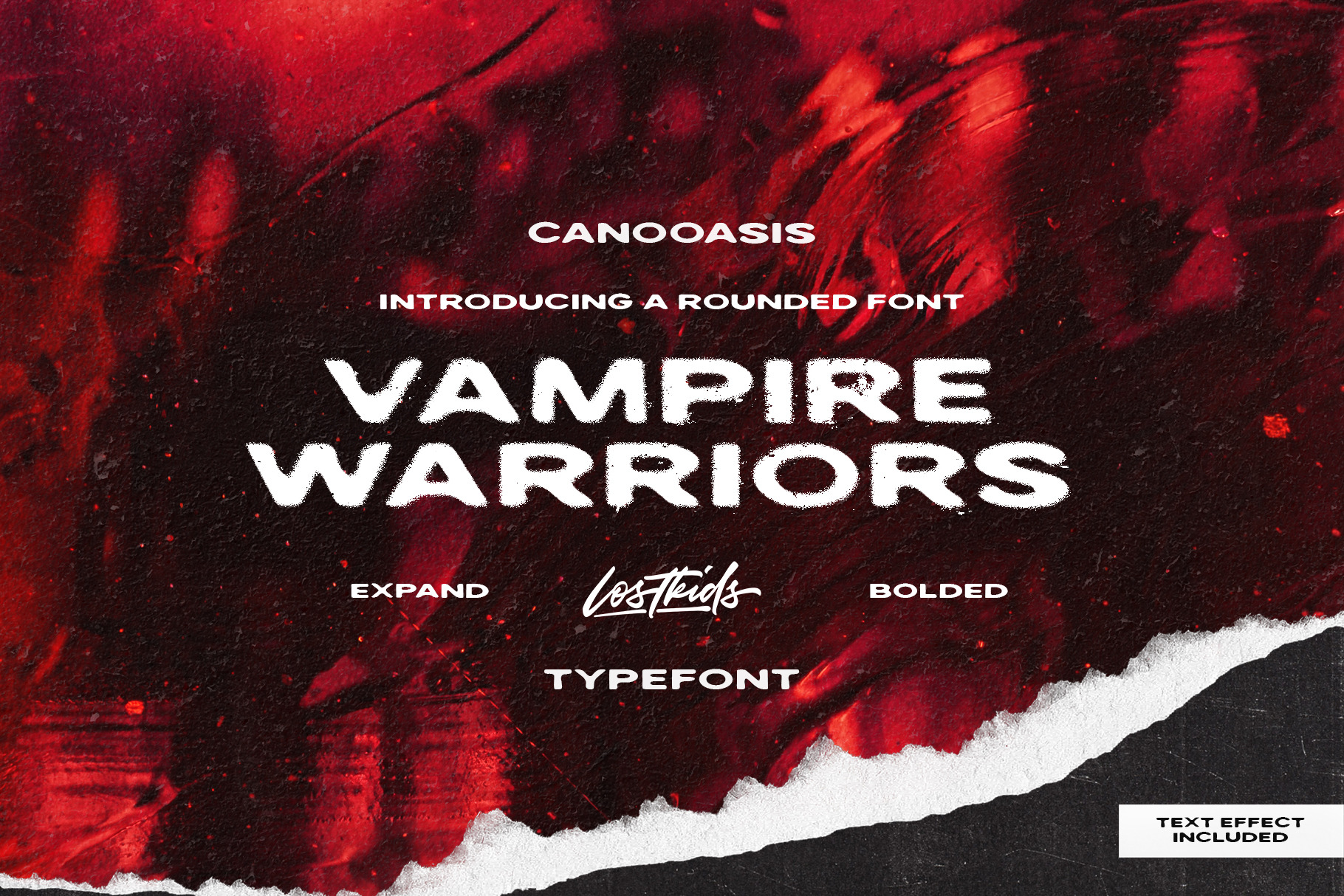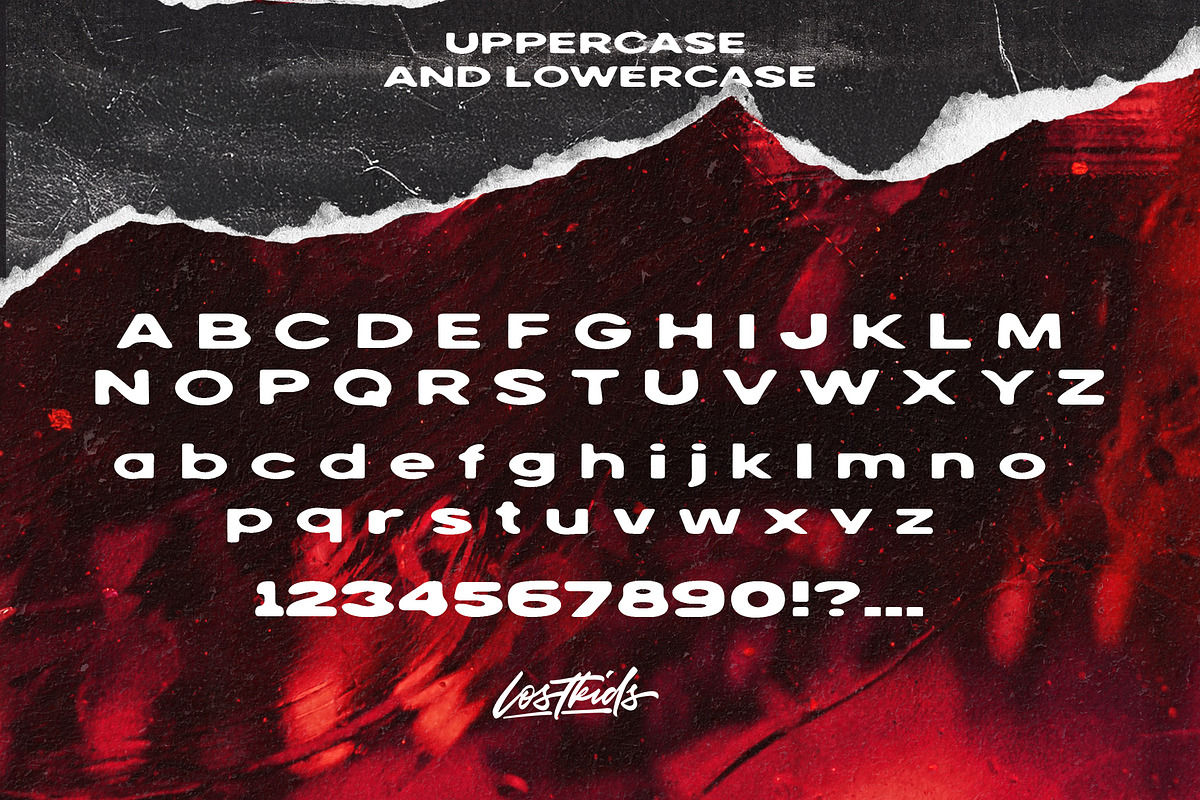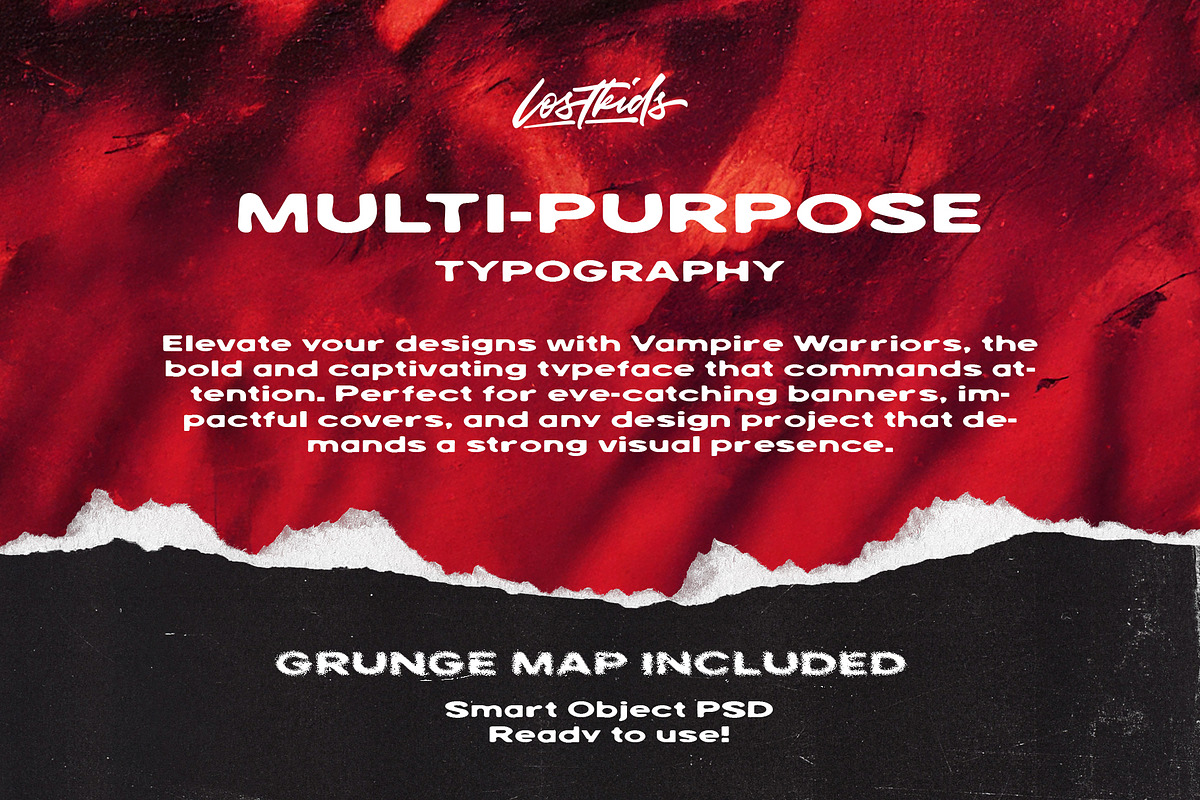
VAMPIRE WARRIOR FONT + PSD EFFECT
🔥 Introducing VAMPIRE WARRIOR: The Ultimate Expanded Bold Display Font for High-Impact Design! 🔥
Unleash the raw power and commanding presence of VAMPIRE WARRIOR, a bold and expanded typeface engineered to dominate any canvas. This font is the secret weapon for designers who demand instant attention and professional impact.
Why VAMPIRE WARRIOR is a Must-Have:
⚡️ High-Impact Design: Featuring an expanded, powerful structure and thick, bold lines, this font ensures your text is seen and remembered—perfect for competitive visibility on platforms like YouTube, Twitch, and social media.
🎯 Versatile Display Font: Specifically crafted for Banners, striking Graphic Design projects, eye-catching Book Covers, dynamic Posters, and impactful Logo Design. It commands authority as a Title Font or Headline Font.
🤩 Rounded Serif Style: A unique blend of classic structure and modern boldness. The slightly rounded edges give it a contemporary, friendly-yet-fierce vibe, ideal for Gaming, Fashion, Sports, and Streetwear brands.